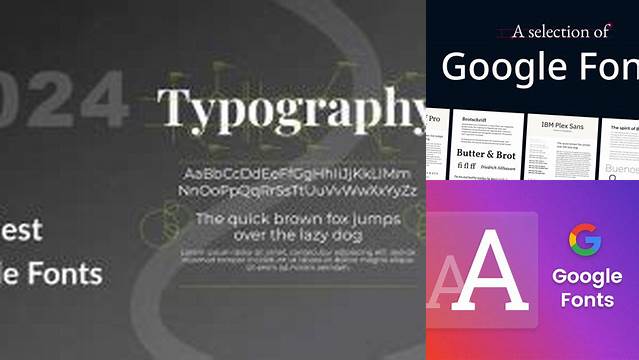
Best Google Fonts For UI Design: Your Ultimate Guide
Hey guys! Choosing the right font for your User Interface (UI) is super important. It's like picking the perfect outfit – it sets the tone and makes a statement! The fonts you use can dramatically impact how users perceive your product, making it more appealing, readable, and user-friendly. Google Fonts offers a massive library of free fonts, which is awesome, but with so many options, it can be tough to choose the best ones. Don't worry, I got you covered! In this guide, we'll explore some of the best Google Fonts for UI, diving into their characteristics, use cases, and why they're popular choices for designers. Let’s get started!
Why Font Selection Matters in UI Design
Okay, so why is font selection such a big deal in UI design, anyway? Well, think about it: your UI is all about communication. You're telling users what to do, providing information, and guiding them through a process. The font you choose is a critical part of that communication. It’s more than just picking something that looks “pretty”. It is really about readability and accessibility which are super important for your users. If your text is hard to read, users will bounce! They won't stick around to explore your app or website. A well-chosen font ensures your message is clear and understandable, enhancing the overall user experience. When a font is readable, users can easily scan and comprehend information, leading to a more engaging and less frustrating experience. This means they're more likely to understand your calls to action, navigate your interface, and achieve their goals. Readability also contributes to usability. Furthermore, the right font can boost your brand identity. Fonts have personalities. Some are friendly and approachable, while others are more serious and professional. By selecting a font that aligns with your brand's values and personality, you can reinforce your brand identity and create a cohesive brand experience. This consistency across your UI elements strengthens your brand recognition. Consider the emotional impact of fonts. Different fonts can evoke different emotions. For example, a clean, modern sans-serif font might convey a sense of trustworthiness and efficiency, while a more playful font could create a sense of fun and creativity. This also includes accessibility. If you are building a website you want it to be accessible to everyone. Therefore, ensuring a user can read your font on every device is crucial for user satisfaction. Readability, brand identity, and emotional impact all play a role in the success of your UI.
Choosing the right font also boosts user engagement. A well-designed UI, with a readable and visually appealing font, keeps users engaged, encouraging them to spend more time exploring and interacting with your product. This is especially important on websites. A user will leave if they are not interested in your fonts. Users will more likely engage with your content if your font is easy to read. This increases the conversion rate. Also, your conversion rate is highly dependent on the font you choose. The right font can also enhance the visual hierarchy of your UI. By using different font sizes, weights, and styles, you can create a clear visual structure, guiding users' eyes to the most important information. This ensures that users understand the flow of information. Finally, a good font can improve the aesthetic appeal of your UI. A well-chosen font complements your overall design, creating a polished and professional look that attracts and delights users. So, next time you're designing a UI, remember that your font isn't just text; it's a vital part of the user experience.
Top Google Fonts for UI Design
Now that we know why font selection is crucial, let's dive into some of the best Google Fonts for UI design. I'll highlight their key characteristics, use cases, and why they're so popular among designers. These fonts are easy to integrate into your projects, as Google Fonts provides free and open-source options that can be easily implemented in your design. Let’s take a closer look at each of them!
1. Roboto
Oh man, Roboto is a classic! It's a sans-serif font that's known for its clean, modern, and highly readable appearance. Developed by Google, Roboto is designed to work well across different devices and screen sizes, making it a great choice for UI design. It’s like the workhorse of Google Fonts. Roboto is extremely versatile. It comes in a wide range of weights and styles, allowing you to create visual hierarchy and emphasize important information. Whether you need a bold headline, a regular body text, or anything in between, Roboto has you covered. This flexibility makes Roboto perfect for a wide variety of UI applications. From websites to mobile apps, it’s a great all-around choice. One of the primary advantages of Roboto is its readability. The letterforms are well-defined and easy to distinguish, making it comfortable to read for extended periods. This is especially important for user interfaces, where users spend a lot of time interacting with text. Its neutral and approachable style also makes it a great choice for any brand. It doesn't have a strong personality, which means it can be used with a variety of design styles. It is also a great choice for mobile app. It is legible on small screens, which is a key consideration in UI design. Its clean lines and open counters contribute to its readability on screens. Also, Roboto is very versatile! It works for both headings and body text. Overall, Roboto is a reliable and versatile font that is a great choice for any UI design project.
2. Open Sans
Open Sans is another super popular sans-serif font that's known for its friendly and approachable vibe. It's designed to be highly readable on screens, and it has a neutral appearance that makes it suitable for a wide range of design projects. I really like Open Sans because it is very versatile and readable. It's a great choice for both body text and headlines. The wide apertures and open forms make it easy to read. Also, the font comes in a variety of weights and styles, which allows you to create a clear visual hierarchy and highlight important information. Open Sans is well-suited for a wide array of applications, including websites, mobile apps, and print materials. Its clean and simple design is easy on the eyes, making it a great choice for long-form content. One of the major benefits of Open Sans is its readability. The clear and open letterforms ensure that the text is easily scanned and comprehended. This improves user experience, especially for users who spend a lot of time reading content. It is also really good for accessibility. It is designed to be readable across different devices and screen sizes, ensuring your text is accessible to a wide audience. The neutral and friendly character of Open Sans complements a wide range of design aesthetics. Whether your UI is clean and modern or more playful, Open Sans will integrate nicely. Also, Open Sans is extremely popular, making it a safe choice for any UI design project. The wide availability and its many supports ensure it’s a good choice for any project.
3. Lato
Lato is a sans-serif font designed by Łukasz Dziedzic, known for its friendly and approachable design. It's a solid choice for UI design due to its readability and versatility. It provides a clean and modern look, making it a good choice for modern interfaces. Lato is very balanced. It has a warm and friendly appearance, making it a great choice for apps that want to create a welcoming vibe. The letterforms are carefully crafted and easily readable, offering a positive user experience. Lato is versatile. It is suitable for many designs, from web and mobile apps to print materials. Its ability to work well in both small and large sizes also makes it a flexible choice. The readability of Lato is excellent. Its clear and legible letterforms make it ideal for both body text and headlines. It provides a comfortable reading experience, which is vital for UI design. This is very important for UI design. It increases user engagement. It is easy to read on many different devices. Its neutral style makes it work for many designs. Also, it has great versatility, which makes it suitable for everything.
4. Montserrat
Montserrat is a sans-serif font inspired by the urban typography of the Montserrat neighborhood in Buenos Aires. Designed by Julieta Ulanovsky, this font offers a modern and stylish look. Montserrat is modern and stylish. It has a clean geometric design that adds sophistication to the UI. It's great for headlines and display text. It is ideal for design projects that seek a modern aesthetic. Its geometric forms make it stand out, drawing the user's attention. It offers a great readability level. Its letterforms are well-defined and easy to distinguish. This ensures your message is clear. Montserrat is a great choice for a brand identity that wants a modern and stylish aesthetic. It can be easily incorporated into many designs, especially with its versatility. Also, it is good for both websites and mobile apps.
5. Poppins
Poppins is a geometric sans-serif font that is popular for its versatility and readability. It is designed by Indian Type Foundry, and it is known for its clean and modern appearance. Poppins is very versatile! It is suitable for a wide range of design projects, from websites to mobile apps. It works very well in both headings and body text. Its many styles make it a flexible choice. It is very readable, even on small screens. This makes it perfect for user interfaces. Its simple design ensures the content is easy to comprehend. Its neutral style also complements many design aesthetics. It is also a safe choice for your designs. Its wide availability and compatibility ensure that the font will work well in different environments. It also provides a smooth and engaging user experience.
Tips for Choosing the Right Google Font
Alright, so you've seen some of the best Google Fonts for UI. But how do you choose the right one for your project? Here are a few quick tips:
- Consider Your Brand Identity: Does your brand have a specific personality or style? Choose a font that reflects these characteristics. For example, a playful brand might use a more rounded font, while a professional brand might opt for a clean sans-serif. This aligns your brand with your font choice.
- Prioritize Readability: Make sure the font is easy to read, especially for body text. Consider font size, weight, and spacing to ensure readability on all devices. Readability is your top priority!
- Test on Different Devices: Always test your font on various devices and screen sizes to ensure it displays correctly and remains readable. This ensures that your UI is accessible to everyone. Responsive design is crucial.
- Experiment with Font Pairings: Don't be afraid to mix and match fonts! Pair a clean sans-serif font for headings with a more decorative font for subheadings or accents. Be mindful of creating a good balance.
- Keep It Simple: Don't overwhelm your users with too many fonts. Stick to a maximum of two or three fonts to maintain consistency and visual clarity. Don't try to be too fancy.
Choosing the right Google Fonts for your UI design is essential for creating a visually appealing, user-friendly, and effective product. By carefully considering your brand, prioritizing readability, and experimenting with different fonts, you can enhance your user experience and make your UI stand out. So go ahead, explore the Google Fonts library, and find the perfect font for your next project! Good luck, guys!